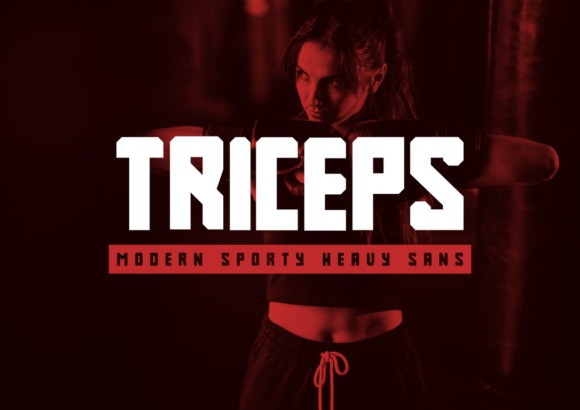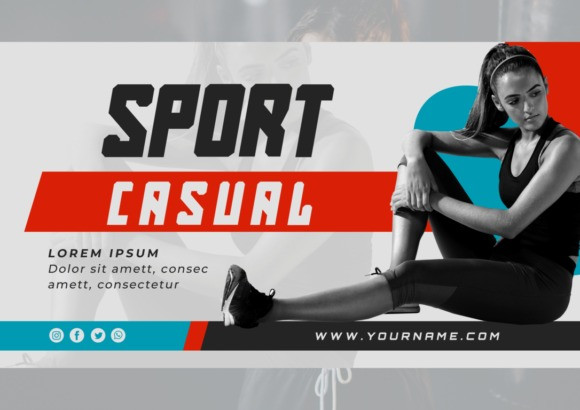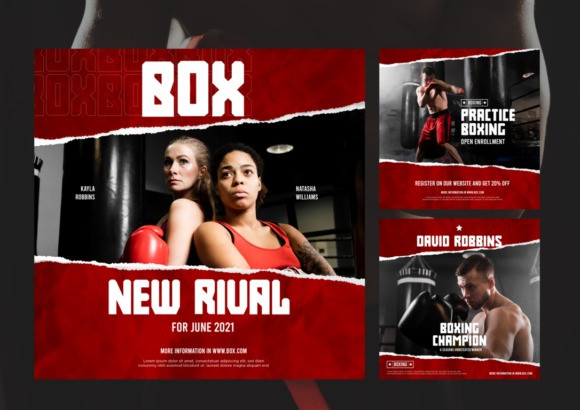
Triceps Font
Triceps is a bold and thick lettered display font. No matter the topic, this font will be an incredibly asset to your fonts’ library, as it has the potential to elevate any creation.